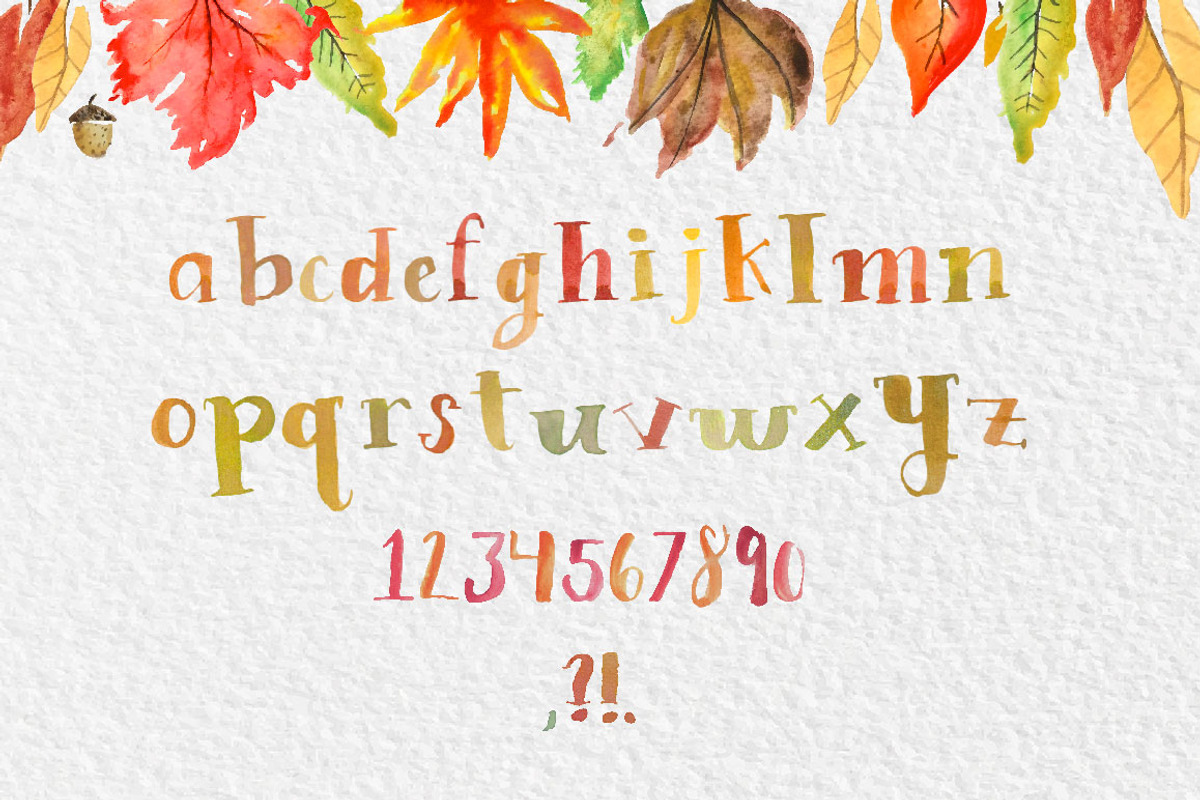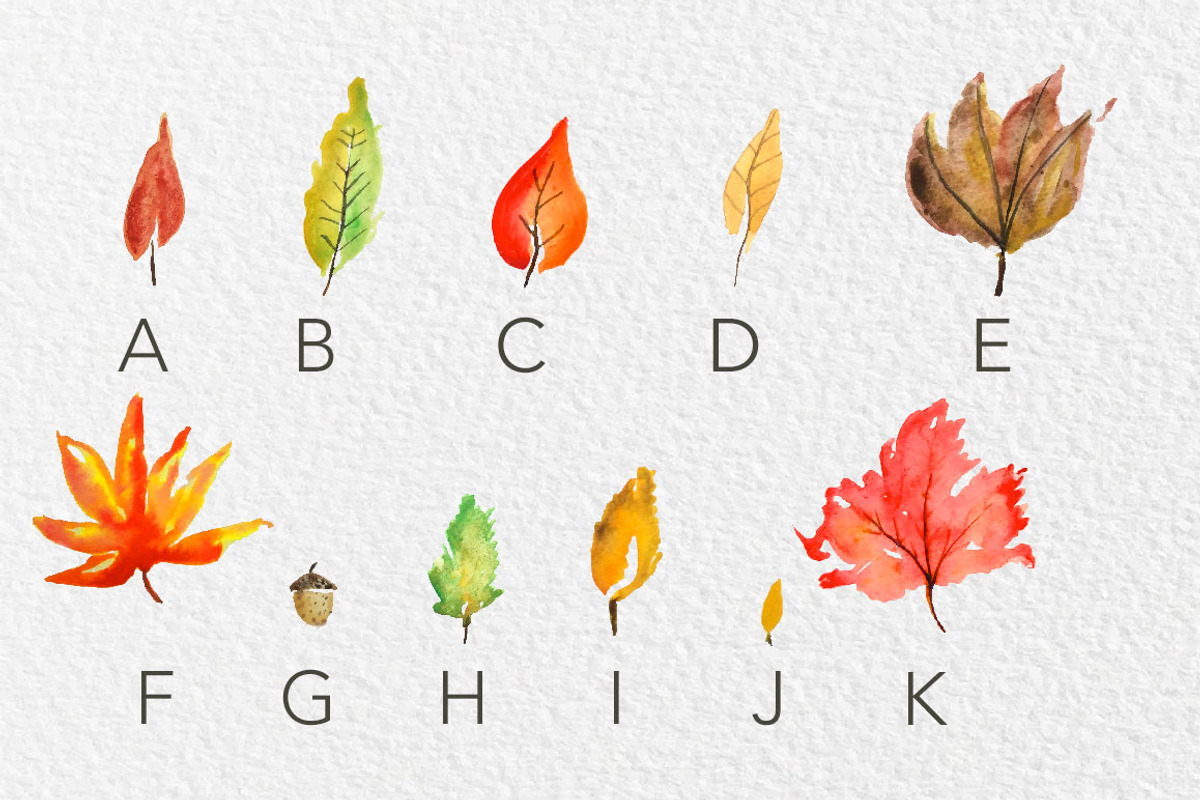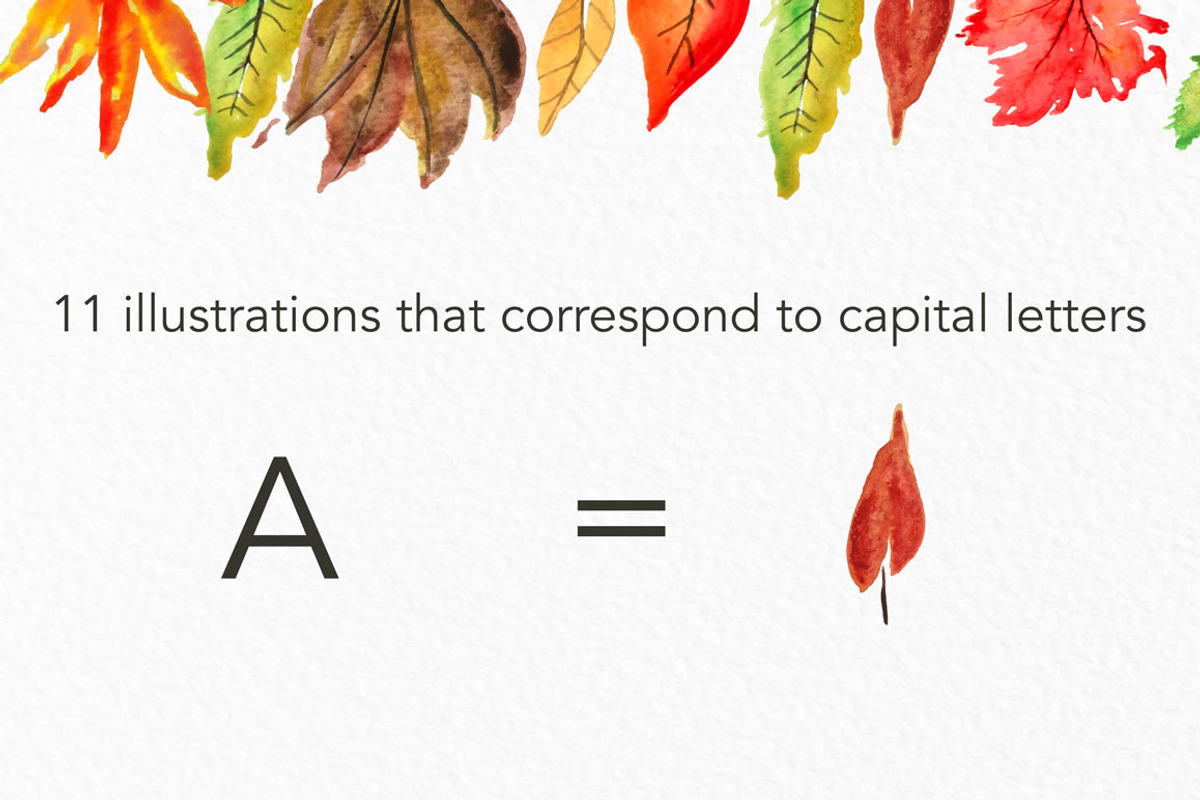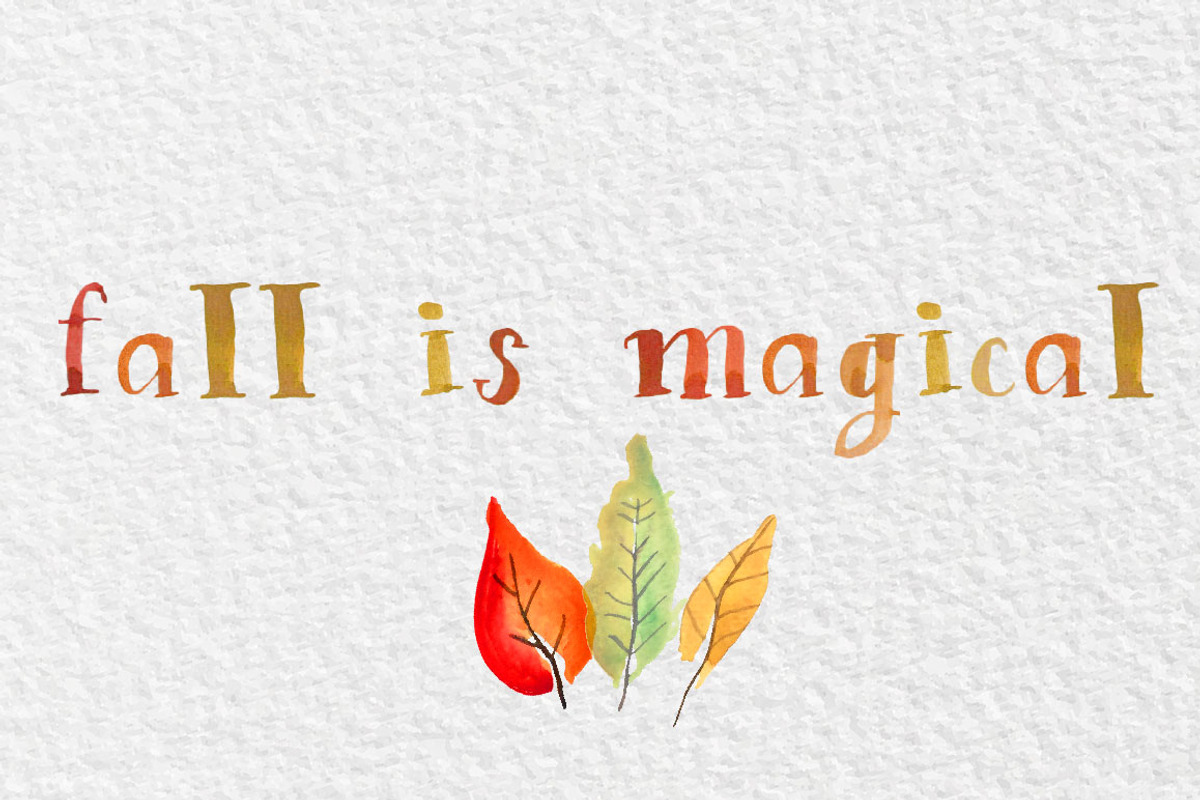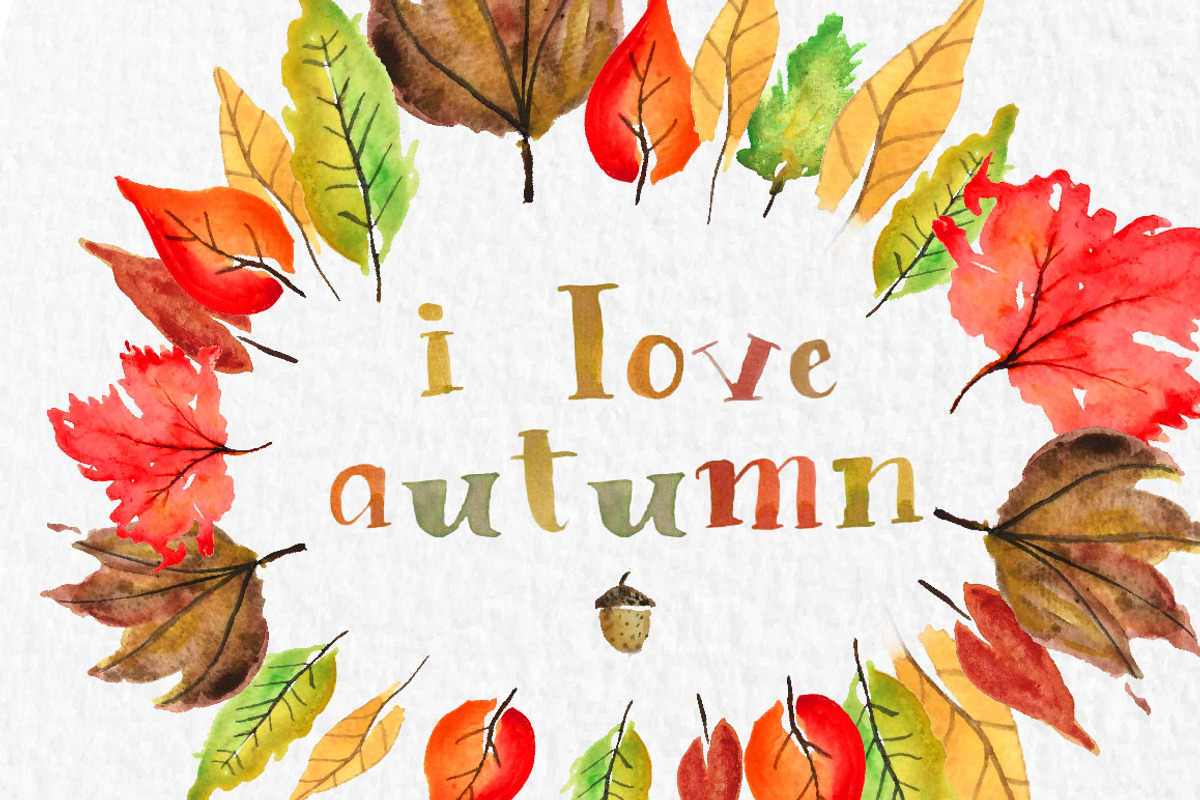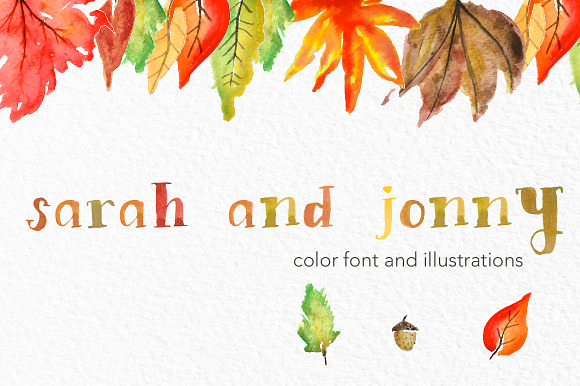
Sarah & Jon Watercolor Font
Now you can add watercolor text and accents to all your projects!
Even better, the leaves are saved as capital letters, so no extra files need - just install the font and you're good to go.
Use this font for artsy prints, invitations, merchandise, or anything else you can think of - have fun with it!
Sarah & Jon Watercolor Font by I'm Knot Tangled fits naturally into Branding, posters, packaging, typography.